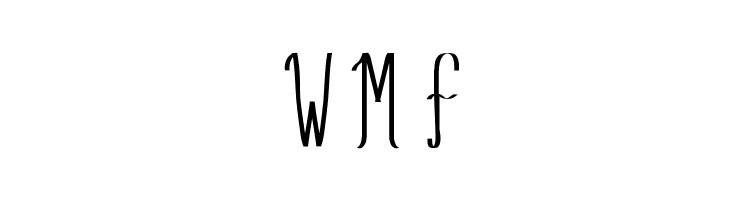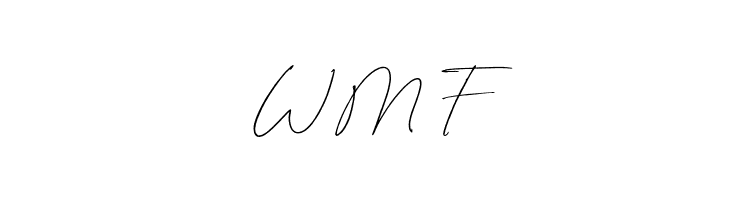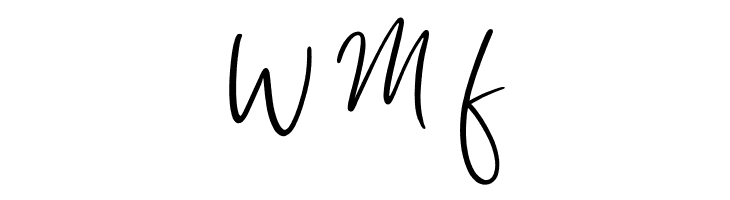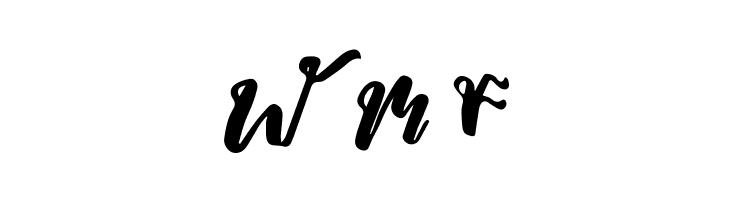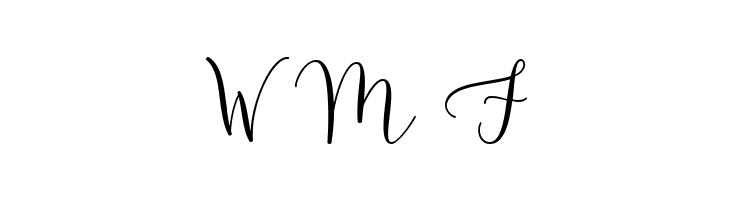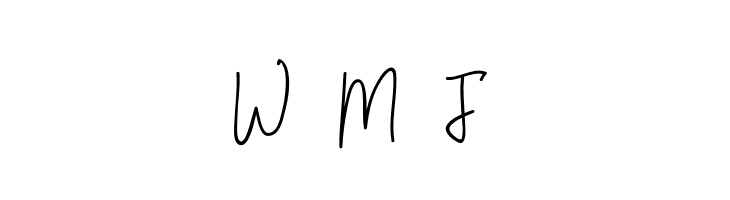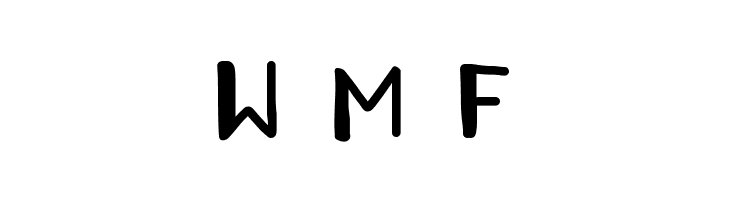
A modern, high-contrast font with elegant, slender forms and decorative elements.
A bold, expressive brush-style font with dynamic strokes and a hand-painted appearance.
A modern, elegant script font with flowing, interconnected characters.
A cursive, handwritten font with elegant, flowing strokes.
A graceful and elegant script font with flowing, cursive letterforms.
A bold, expressive script font with a handwritten style.
A modern, elegant script font with flowing, connected strokes.
A playful, handwritten font with rounded, casual letterforms.
A flowing, cursive font with elegant, interconnected letters.
A casual, flowing handwritten script with elegant, connected letters.